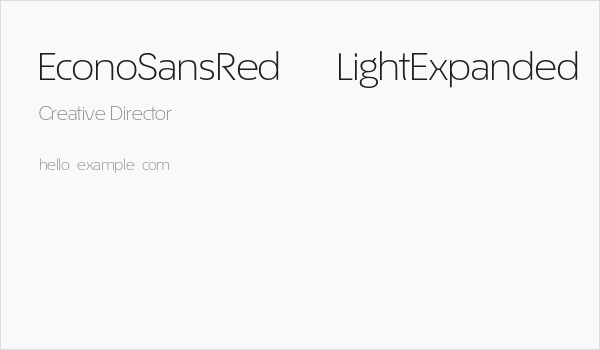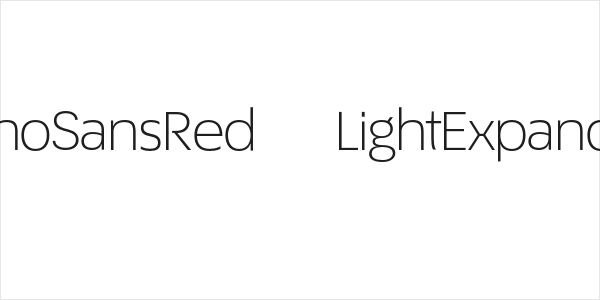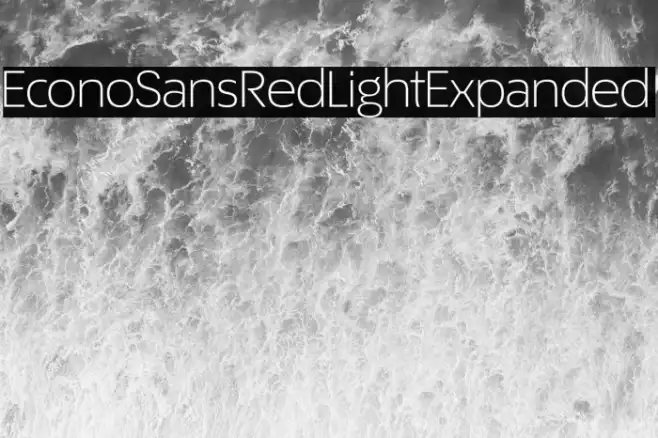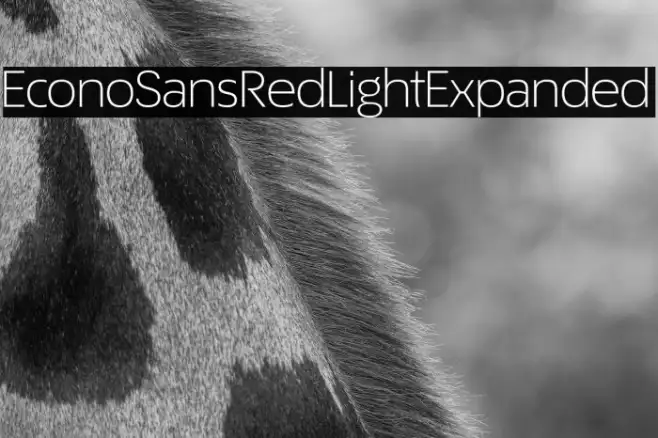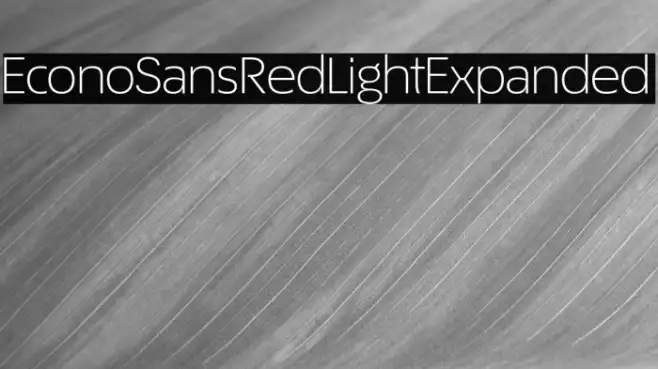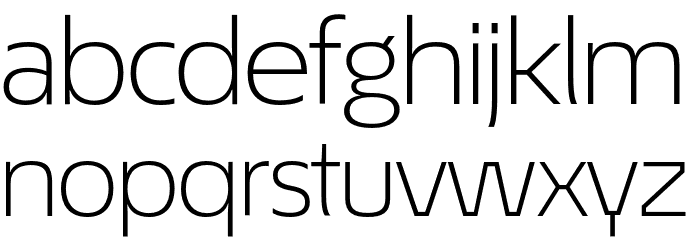
EconoSansRed-43LightExpanded Font
EconoSansRed-43LightExpanded Description
This font features a clean and modern sans-serif design with a light weight and expanded width. The characters are sleek and minimalistic, offering a contemporary aesthetic that is both professional and approachable. The uppercase and lowercase letters maintain a consistent geometric structure, providing a harmonious and balanced appearance. The numerals and special characters are designed with the same attention to detail, ensuring readability and versatility across various applications. The overall style is understated yet sophisticated, making it suitable for a wide range of design projects.
| Proposed Projects | Ideal for branding, web design, corporate materials, and editorial layouts. |